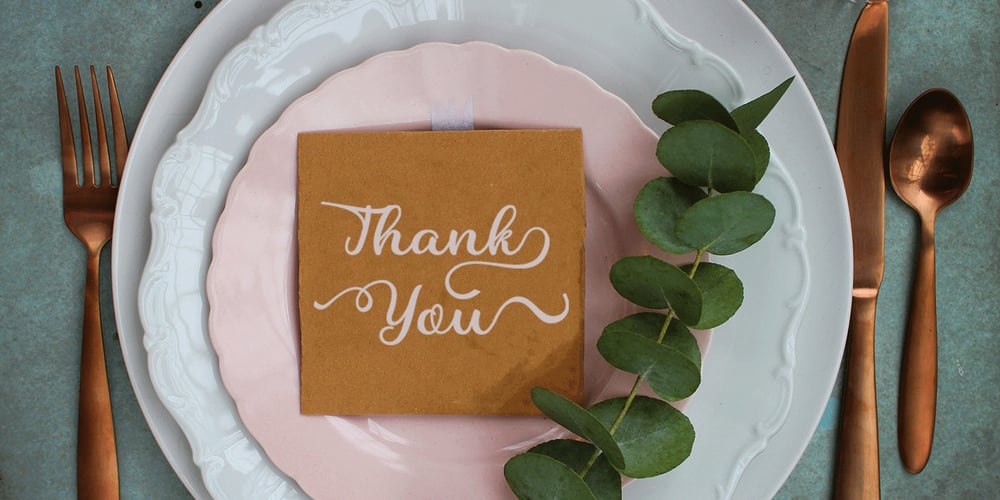
Charline Font Family was designed by Marwah and published by BBA Key. Charline contains 2 styles and family package options. Charline, a new fresh and modern script font with decorative characters and dancing lineage! So wonderful for invitations like greeting cards, branding material, business cards, quotes, posters, and more !! Charline comes with 497 glyphs. Alternate characters are divided into several Open Type features such as Swash, Stylistic Sets, Stylistic Alternate, Contextual Alternate. Open Type features are accessible by using Open Type savvy programs such as Adobe Illustrator, Adobe InDesign, Adobe Photoshop Corel Draw X versions, and Microsoft Word. And this font has code PUA unicode so that all alternative characters can be easily accessed by craftsmen or designers. Charline Uppercase & lowercase International signature & symbol Punctuation Support & PUA number Unicode Style Style Alternative Style Style Range 1-13 Contextual Character Variations.